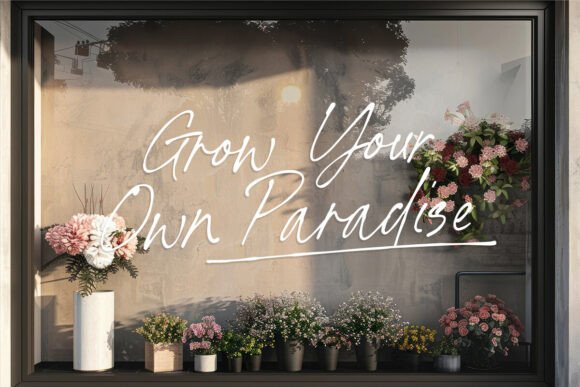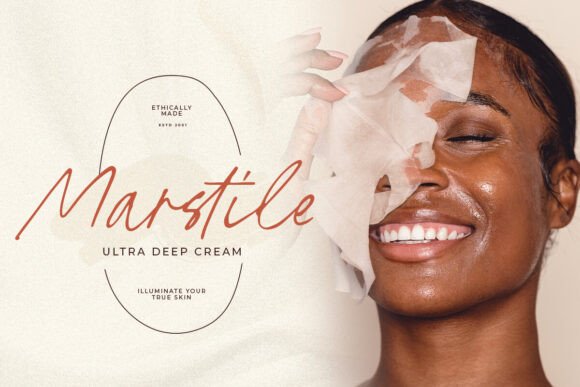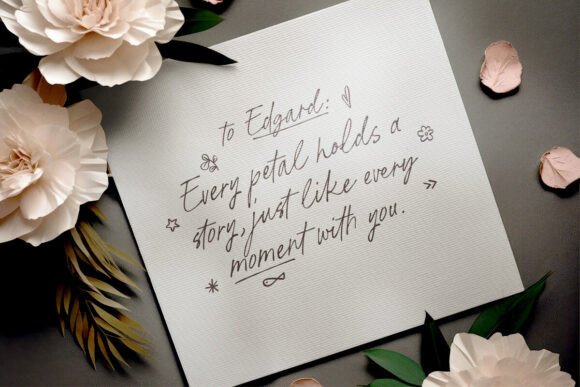
North Stains Font: Minimalist Script for Organic Branding & Wedding Invites
About the North Stains Font
The North Stains Font offers a perfect balance of form and function for your design needs. North Stains is a minimalist handwritten script with bunch of contextual alternates that can change automatically that will make your project looks more organic. You can use this font for any purposes such as label, logo, handwritten quotes, wedding invitations and more. This font also have underline that you can access from ligature feature, just type underscore + number(1-3) in the middle of your words. North Stains also support multi language. Let’s make your handwritten dreams come true!
North Stains excels in applications requiring a touch of casual elegance, such as logos, short headlines, wedding invitations, and packaging design where a handcrafted feel is desired. Its organic nature works best in smaller text blocks; avoid using it for body copy or extended paragraphs. The numerous contextual alternates prevent monotony, lending an authentic handwritten appearance.
For optimal visual harmony, pair North Stains with a clean sans-serif like Lato for body text or a geometric sans-serif like Montserrat for a modern contrast. Alternatively, a classic serif such as Garamond can create a sophisticated pairing, balancing the script’s informality with traditional elegance. Avoid pairing it with other highly stylized or decorative fonts to prevent visual clutter.
The overall personality of North Stains is sophisticated yet approachable; its slightly irregular forms convey a sense of handcrafted authenticity without sacrificing legibility. It’s ideal for brands aiming for a balance between modern minimalism and a touch of personal warmth.
North Stains Font Usage Examples
North Stains Font Example